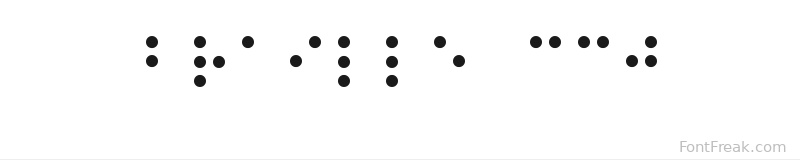
Braille CC0
Braille CC0 by GGBot is a distinctive font that falls into the category of decorative typefaces, specifically designed to mimic the tactile writing system used by visually impaired individuals. This unique font features a clean, minimalist design that consists of raised dots arranged in the braille pattern. Its visual characteristics include uniform stroke weight and a consistent spacing that effectively captures the essence of traditional braille. The absence of intricate decorative elements keeps the focus on the simplicity and functionality of the design.
The Braille CC0 font is ideal for a variety of specific applications. It can be used in educational materials aimed at teaching braille to children, enhancing accessibility in public signage, or creating awareness campaigns about visual impairment. Additionally, it can serve as an engaging design element in art installations that promote inclusivity and understanding. Graphic designers may also find it useful for creating visually striking posters or brochures for organizations focusing on disability rights.
Target audiences for this font include graphic designers, educators, and small business owners who prioritize accessibility in their projects. Content creators who value inclusivity will also appreciate how this font can add depth and meaning to their work.
What sets the Braille CC0 font apart is its commitment to accessibility while maintaining an aesthetically pleasing appearance. By offering a braille-inspired typeface that is available for free download, GGBot encourages a more inclusive approach to design, ensuring that everyone can appreciate and engage with visual content. This font not only serves a functional purpose but also acts as a conversation starter around the importance of accessibility in our everyday lives. The Braille CC0 font free download is a valuable resource for those looking to make a meaningful impact through their creative endeavors.